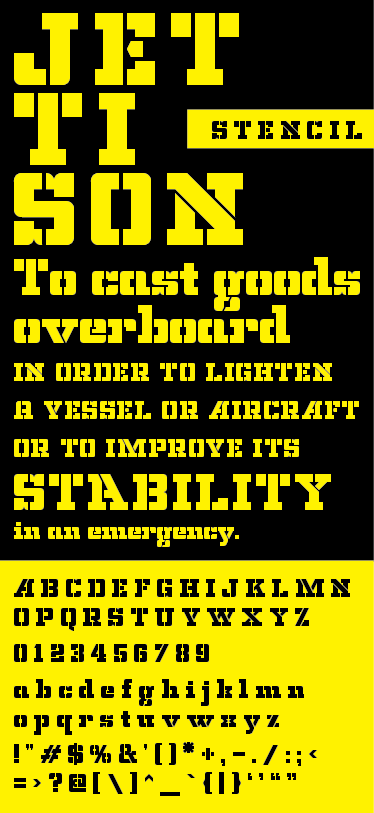
This is great, and I love both the specimen and the alternate characters!
this is awesome! how did you get those curved corners? i had a look at a clone and still can't figure it out... sorry if this is a dumb question.
ok, i've found the brick stacking technique now. cheers
ok, i just checked it out, and that is amazing... well, for me it is as i never thought of scaling up x2 for both axis... i can be a little daft...
Thanks for the positive vibes all. Jettison owes a debt to many of you for laying the groundwork that led to its birth.
@SimonRobertson: Williaum is spot on with his dissection. I've simply scaled both the x and y from 1 to 2. I find this scaling gives more possibilities for brick overlapping. Like in the percentage glyph below where the curve meets the angle.
I had dismissed brick scaling because I didn't like the global nature of it. But wasn't I lazy! I just didn't spend enough time familiarising myself with it to assess what it could do.
Once you scale up you'll never go back;-)
Alfred, Chesterfield and Starstruc were all built using the 2x scale method. I think Jettison (at least 95% of it) could have been built at 1x scaling but when I started it I was already so use to laying brick at 2x that I found it confusing to go back to 1x. Below is an example of the "K" from the FontStruction Alfred. You can see some of the overlapping techniques I used to create the joint angles and in the fillets on the serifs.
I thought everyone knew about how brick scaling worked!?! Many of my designs just wouldn't be possible without it. Thanks for posting your visual explanations. I can put up some if anyone is interested.
You're right, brick overlapping at 2x scale increases brick possibilities by a factor of 4. Everything you can do in 1x you can do in 2x, and then some. Not only that, depending on your design, you can cover the same amount of grid real estate that you would in 1x using only a quarter of the bricks.
Combine that with williaum's brick stacking technique, and you have exponential possibilities. Then the fun really begins!
@geneus1: The FontStruct Universe would be a better place, if you showed us how you do some of your magic. I'm pretty sure I stole the scaling idea from one of your earlier creations.